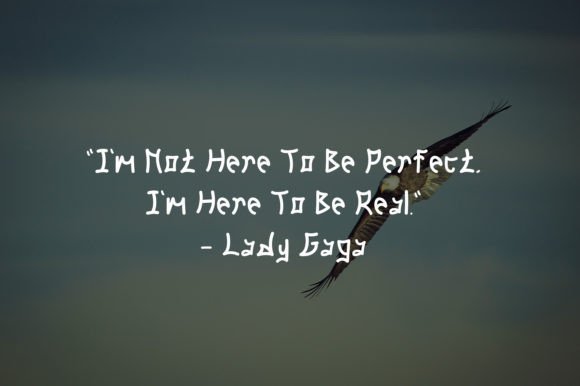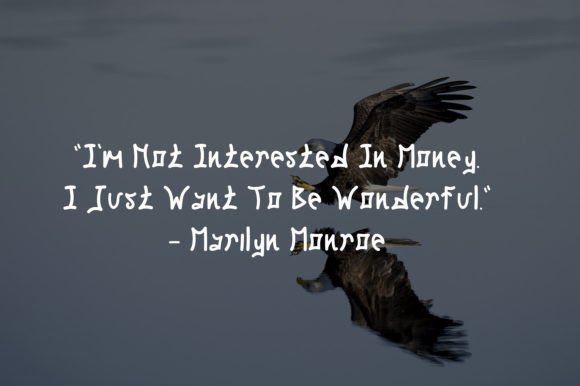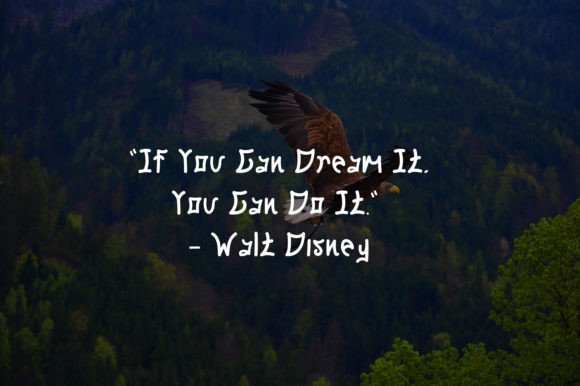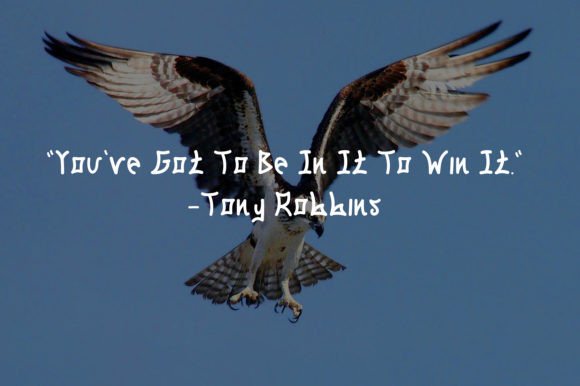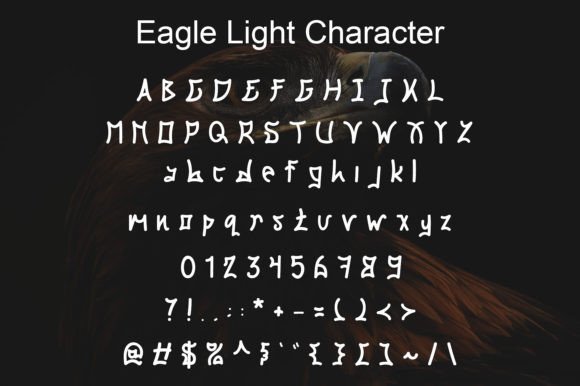
Eagle Light Font: Elevate Your Designs with a Quirky and Stylish Handwritten Font
Are you tired of using the same old fonts in your designs? Do you want to add a touch of personality and whimsy to your creations? Look no further than Eagle Light Font, a quirky and stylish handwritten font that’s sure to capture your heart. With its distinct and well-balanced letters, Eagle Light is a masterpiece that will take your designs to the next level.
The Unique Charm of Eagle Light Font
Eagle Light Font is a one-of-a-kind font that boasts a unique and charming style. Its handwritten letters are carefully crafted to provide a sense of warmth and personality to your designs. The font’s quirky and stylish vibe makes it perfect for designers and crafters who want to add a touch of elegance and sophistication to their creations.
One of the standout features of Eagle Light Font is its incredible versatility. Whether you’re designing a logo, a poster, a social media graphic, or a website, this font is sure to adapt seamlessly to your needs. Its well-balanced letters ensure that your text is always clear and easy to read, making it perfect for both digital and print designs.
Why Designers and Crafters Love Eagle Light Font
So, what makes Eagle Light Font so special? Here are just a few reasons why designers and crafters are falling in love with this amazing font:
- Unique and quirky style: Eagle Light Font has a one-of-a-kind style that’s sure to make your designs stand out from the crowd.
- Well-balanced letters: The font’s carefully crafted letters ensure that your text is always clear and easy to read.
- Incredibly versatile: Whether you’re designing a logo, a poster, or a website, Eagle Light Font adapts seamlessly to your needs.
- Perfect for digital and print designs: This font is suitable for both digital and print designs, making it a great addition to your font library.
How to Use Eagle Light Font in Your Designs
Using Eagle Light Font in your designs is easy! Here are a few tips to get you started:
- Pair it with bold fonts: Combine Eagle Light Font with bold fonts for a striking contrast that adds visual interest to your designs.
- Use it for headings and titles: The font’s unique style makes it perfect for headings and titles that need to grab attention.
- Add a personal touch: Use Eagle Light Font to add a personal touch to your designs, making them more relatable and engaging.
Eagle Light Font is a quirky and stylish handwritten font that’s sure to elevate your designs to new heights. With its distinct and well-balanced letters, this font is a masterpiece that will capture your heart. Whether you’re a designer or a crafter, Eagle Light Font is a great addition to your font library. So why wait? Fall in love with Eagle Light Font and create spectacular designs that showcase your unique style!
- Quirky and stylish handwritten font
- Distinct and well-balanced letters
- Incredibly versatile style
- Perfect for digital and print designs
Get ready to take your designs to the next level with Eagle Light Font!